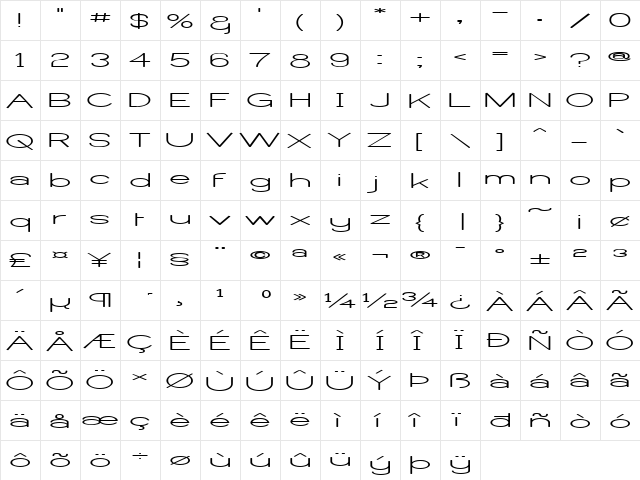
Castorgate Wide Regular
| Designer | Graham Meade |
Design Context for Castorgate Wide Typeface
Castorgate Wide takes a measured approach to typography — its balanced proportions and neutral character make it a reliable workhorse for both digital and print work.
Pro Tip: Use Castorgate Wide in both headline and body roles to test its range before committing to a single application.